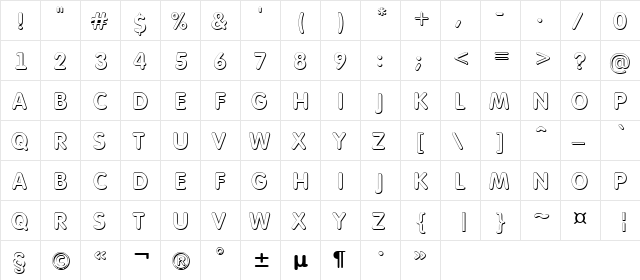
a_FuturaRoundTitulSh Regular
Design Context for a_FuturaRoundTitulSh Typeface
a_FuturaRoundTitulSh channels digital-age aesthetics through its sharp, structured letterforms — ideal for brands that want to signal innovation.
Pro Tip: Use a_FuturaRoundTitulSh in combination with a neutral sans for body text. Let it define the brand voice in headlines while keeping reading comfortable elsewhere.